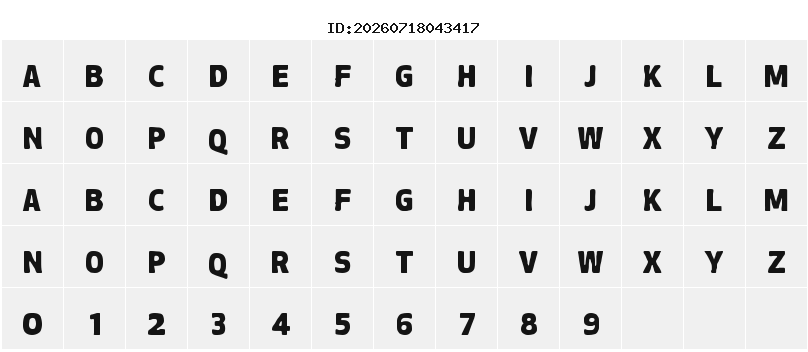
• Font Name: Chubby
• Designer: Anders Kristoffersen
About Chubby.ttf
Chubby.ttf is a modern, elegant sans-serif font designed for ultimate readability and visual harmony. Perfect for branding, headlines, web design, and print materials.